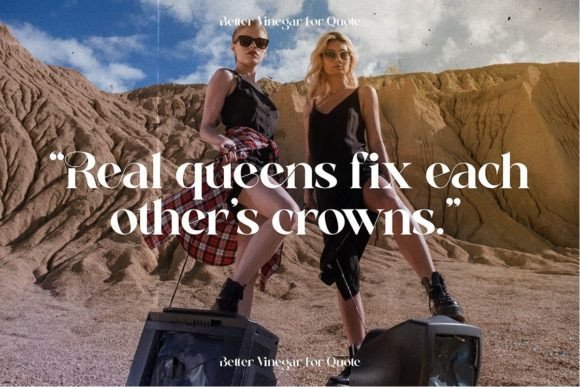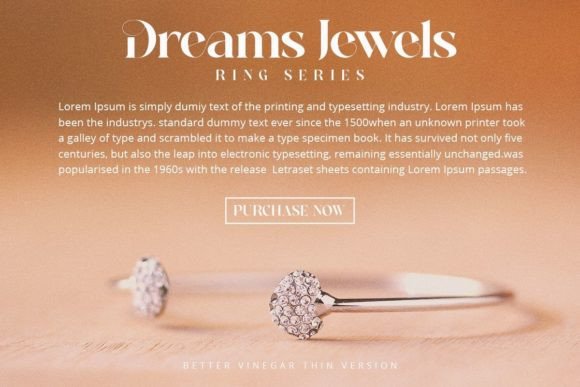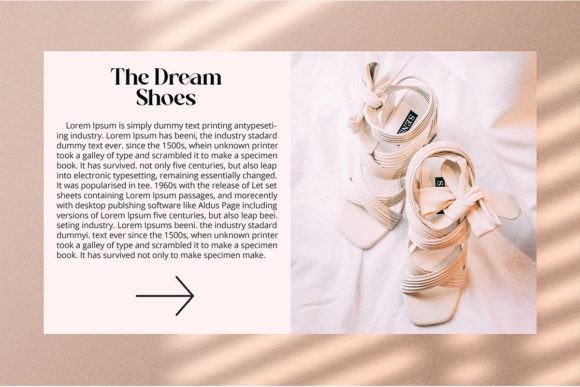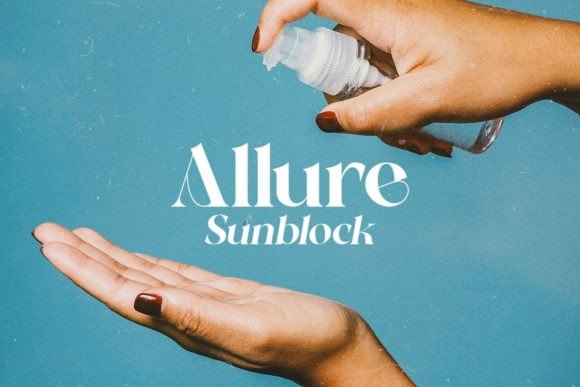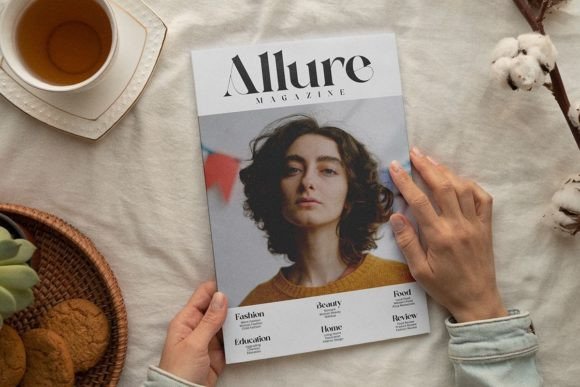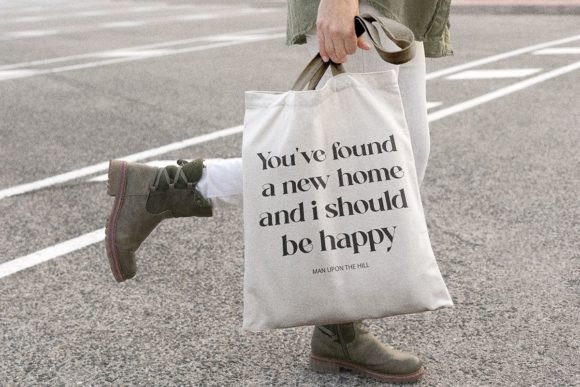
Better Vinegar Font: Elevate Your Design with Elegance and Sophistication
In the world of typography, a well-chosen font can make all the difference in elevating your design from ordinary to extraordinary. If you’re a designer or crafter looking for a typeface that exudes elegance, luxury, and sophistication, look no further than the Better Vinegar Font. This modern, vintage serif typeface is designed to add a touch of refinement and class to any design project, making it perfect for a wide range of applications.
What Makes Better Vinegar Font Stand Out?
Better Vinegar Font is a carefully crafted typeface that boasts a range of features that set it apart from other fonts. Some of its key characteristics include:
- Beautiful Ligatures: The font features stunning ligatures that add a touch of elegance and sophistication to your designs.
- Unique Alternatives: With Better Vinegar Font, you’ll have access to a range of unique alternative characters that allow you to add a personal touch to your designs.
- Perfect Kerning: The font has been meticulously kerned to ensure that your text looks crisp, clean, and professional.
The Perfect Font for a Range of Design Projects
Better Vinegar Font is an incredibly versatile typeface that can be used for a wide range of design projects, including:
- Elegant Logos: Create a luxurious and sophisticated logo for your brand with Better Vinegar Font.
- Classy Editorial Design: Add a touch of refinement to your editorial designs, such as magazines, newspapers, and books.
- Women’s Magazine: The font’s elegant and feminine feel makes it perfect for women’s magazines, fashion blogs, and lifestyle publications.
- Fashion Brand: Elevate your fashion brand with a sophisticated and stylish typeface that exudes luxury and elegance.
- Cosmetic Brand: Create a beautiful and feminine brand identity with Better Vinegar Font.
- Fashion Promotion: Use the font to create stunning promotional materials, such as flyers, posters, and brochures.
- Modern Advertising Design: Add a touch of sophistication to your advertising designs with Better Vinegar Font.
- Invitation Card: Create beautiful and elegant invitation cards for special events, such as weddings, parties, and galas.
- Art Quote: Use the font to create stunning art quotes, posters, and prints.
- Home Decoration: Add a touch of elegance to your home decoration designs, such as typographic prints and wall art.
- Book/Cover Titles: Use Better Vinegar Font to create beautiful and elegant book titles and cover designs.
- Special Events: Create stunning designs for special events, such as conferences, festivals, and exhibitions.
Why Choose Better Vinegar Font?
With so many fonts available, why choose Better Vinegar Font? Here are just a few reasons:
- Unique and Elegant Design: The font’s unique and elegant design makes it perfect for designers and crafters looking to add a touch of sophistication to their work.
- High-Quality Kerning: The font’s kerning has been carefully adjusted to ensure that your text looks professional and polished.
In conclusion, Better Vinegar Font is a stunning, modern, vintage serif typeface that is perfect for designers and crafters looking to add a touch of elegance and sophistication to their work. With its beautiful ligatures, unique alternatives, and perfect kerning, this font is sure to elevate your designs to the next level. Whether you’re working on a logo, editorial design, or promotional materials, Better Vinegar Font is the perfect choice.